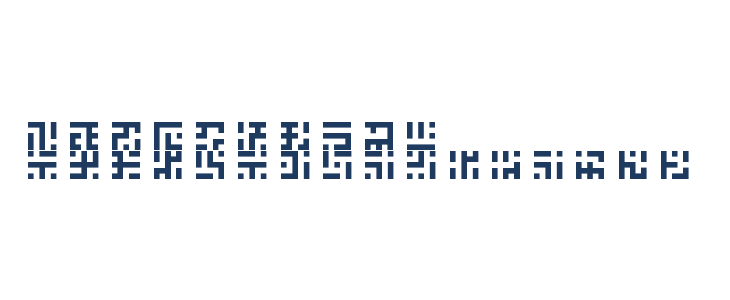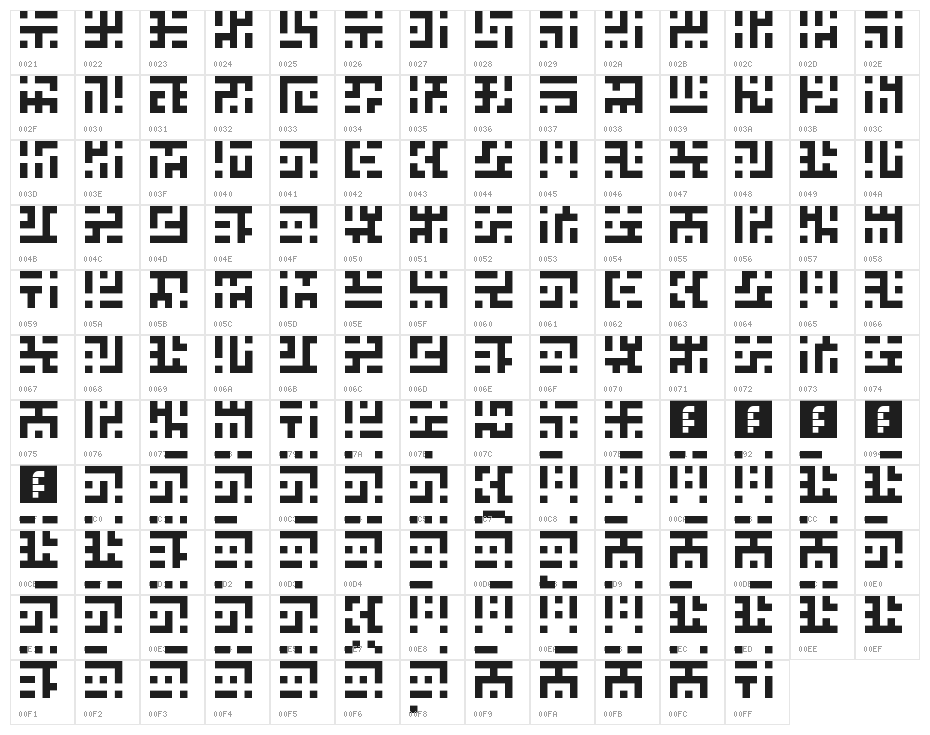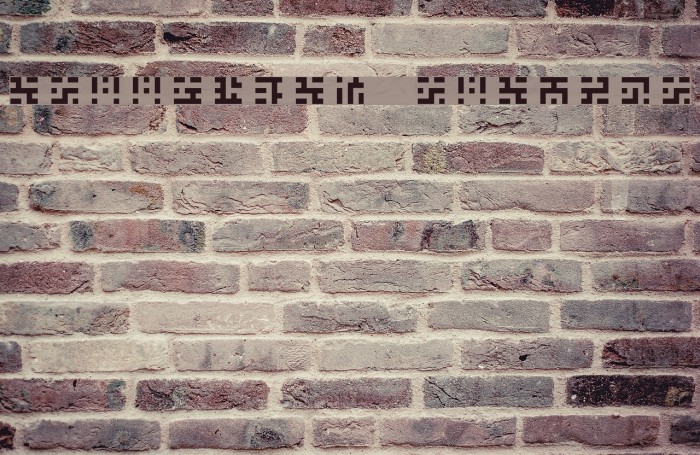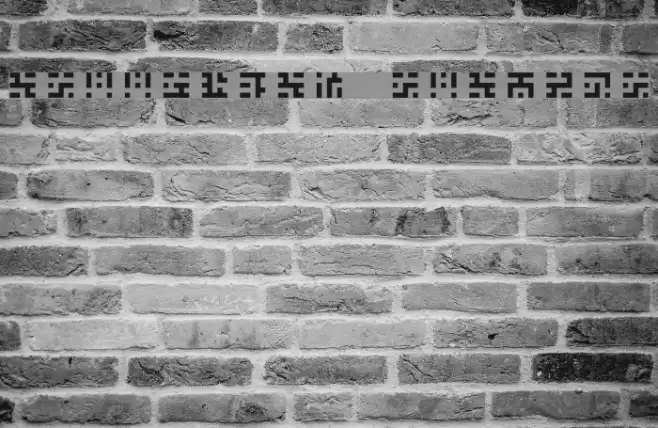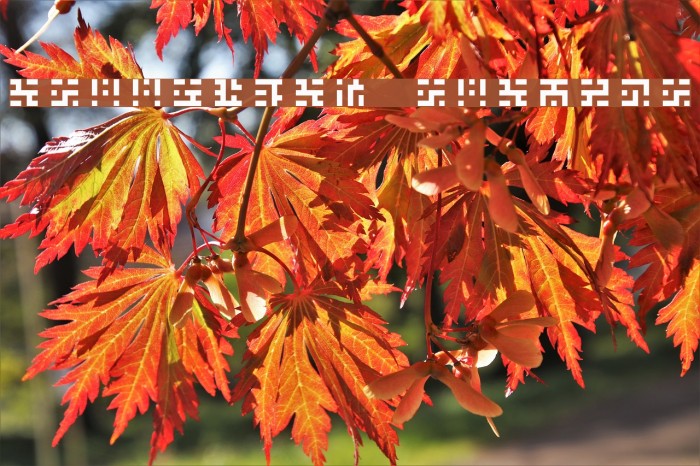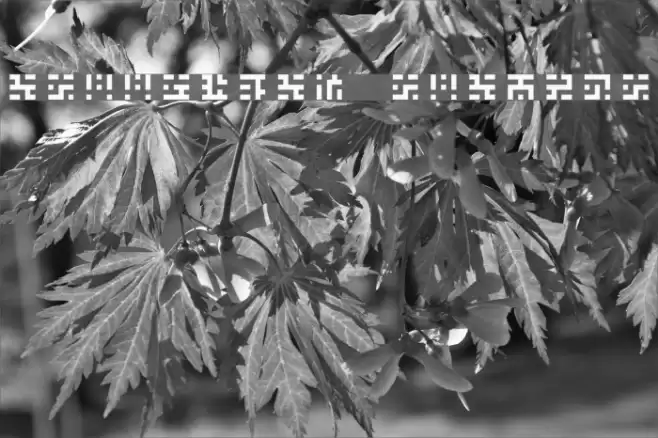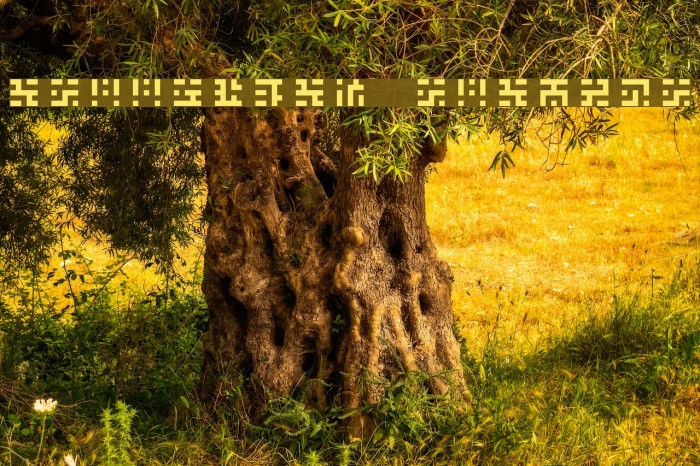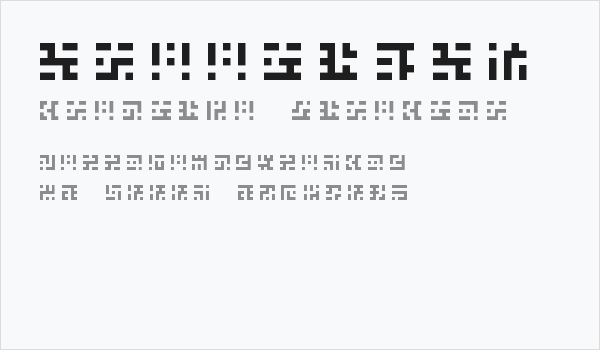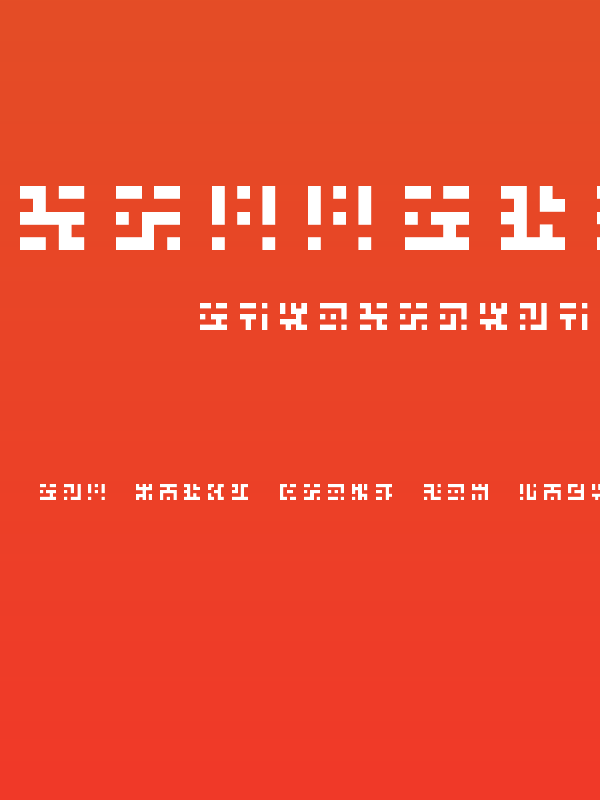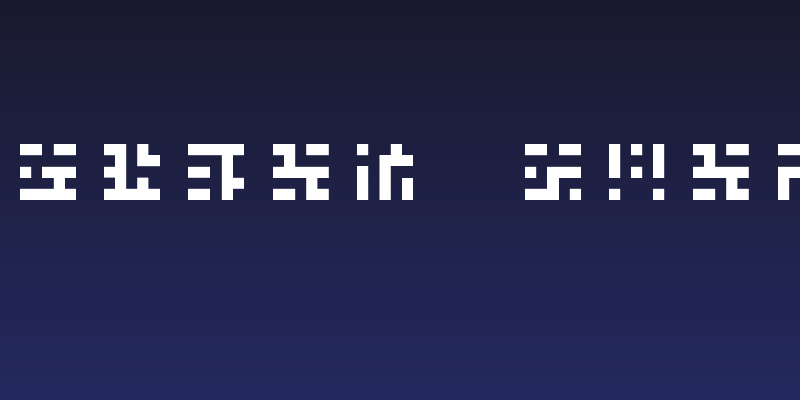
Greetings Regular Font
Greetings Regular Description
This font features a highly geometric and abstract design, characterized by its blocky and pixelated appearance. Each character is constructed using a series of square and rectangular shapes, creating a digital and futuristic aesthetic. The uniformity in shape and size across all characters gives it a cohesive and structured look. This style is reminiscent of early digital displays or retro video game graphics, making it stand out with its unique and bold presence. The font lacks traditional curves and serifs, opting instead for sharp angles and straight lines, which contribute to its modern and tech-inspired vibe.
| Proposed Projects | Ideal for digital art, retro video game designs, tech-themed posters, and modern branding projects. |